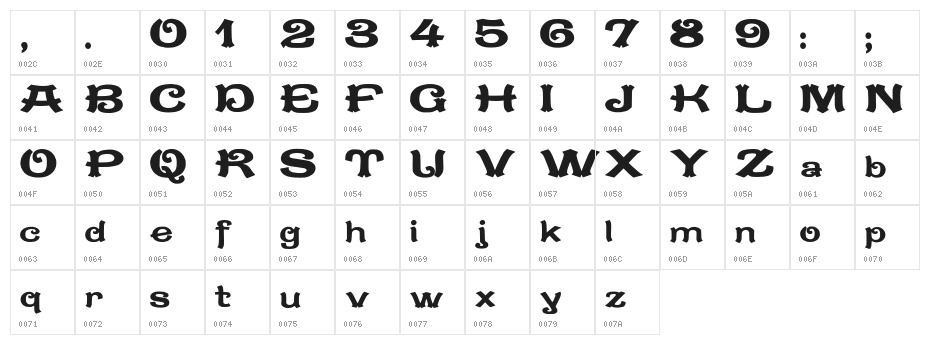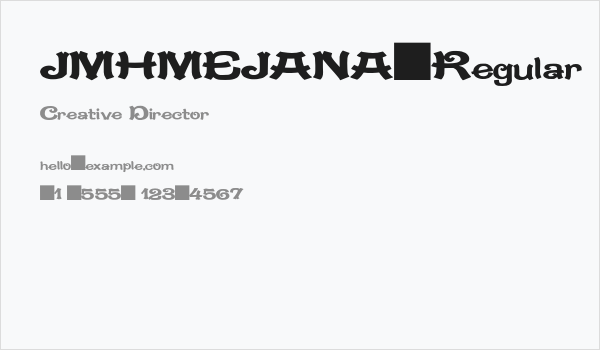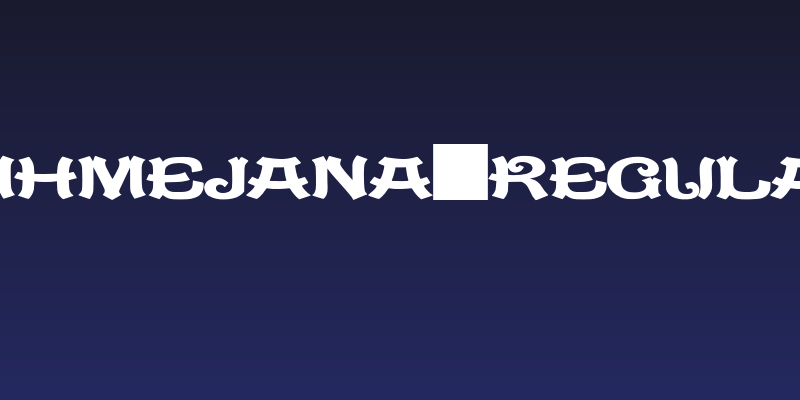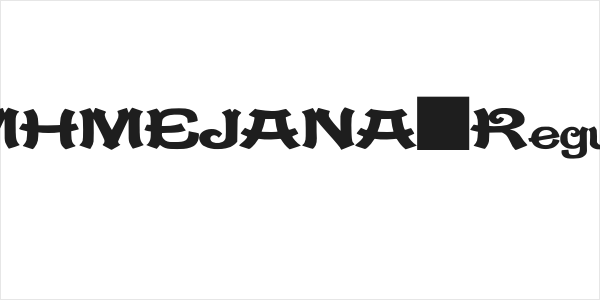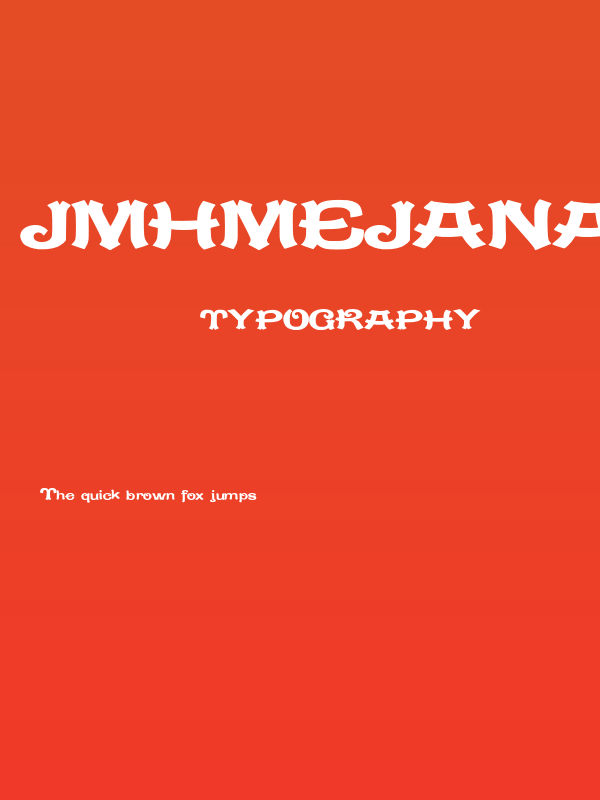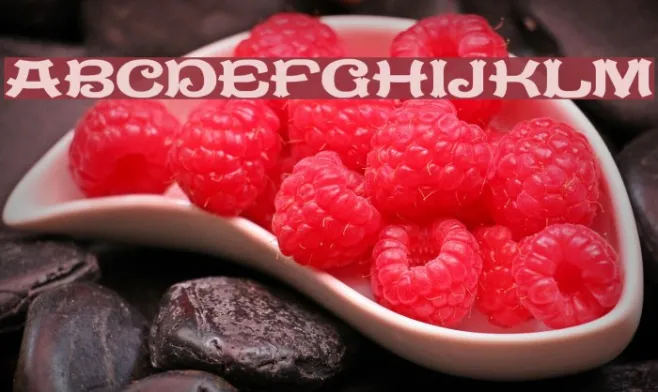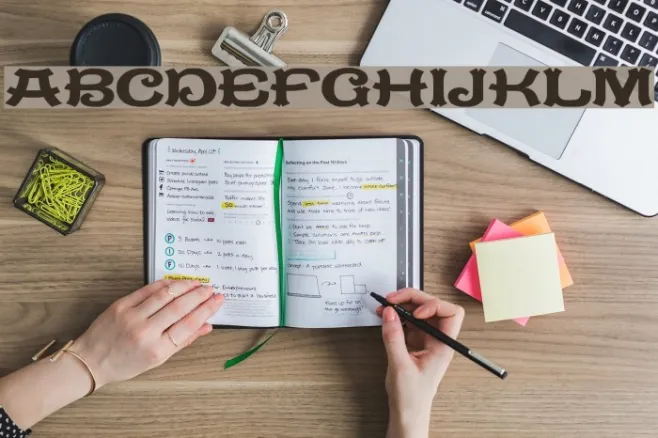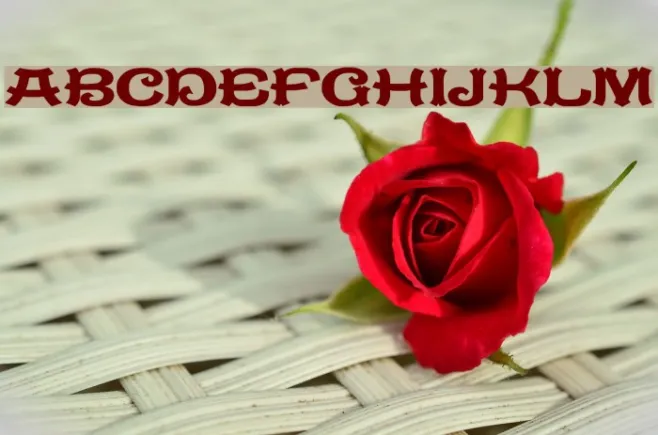
JMHMEJANA-Regular Font
JMHMEJANA-Regular Description
This font features a bold and striking design with a decorative flair. The characters are crafted with a unique style that combines elements of traditional serif fonts with a modern twist. The uppercase letters are particularly eye-catching, with intricate details that add a sense of elegance and sophistication. The lowercase letters maintain a consistent style, ensuring readability while still offering a distinctive appearance. The numerals are bold and clear, making them suitable for various applications. Special characters are included, providing versatility for different design needs.
| Proposed Projects | Ideal for branding projects, poster designs, and any creative work requiring a bold statement. |